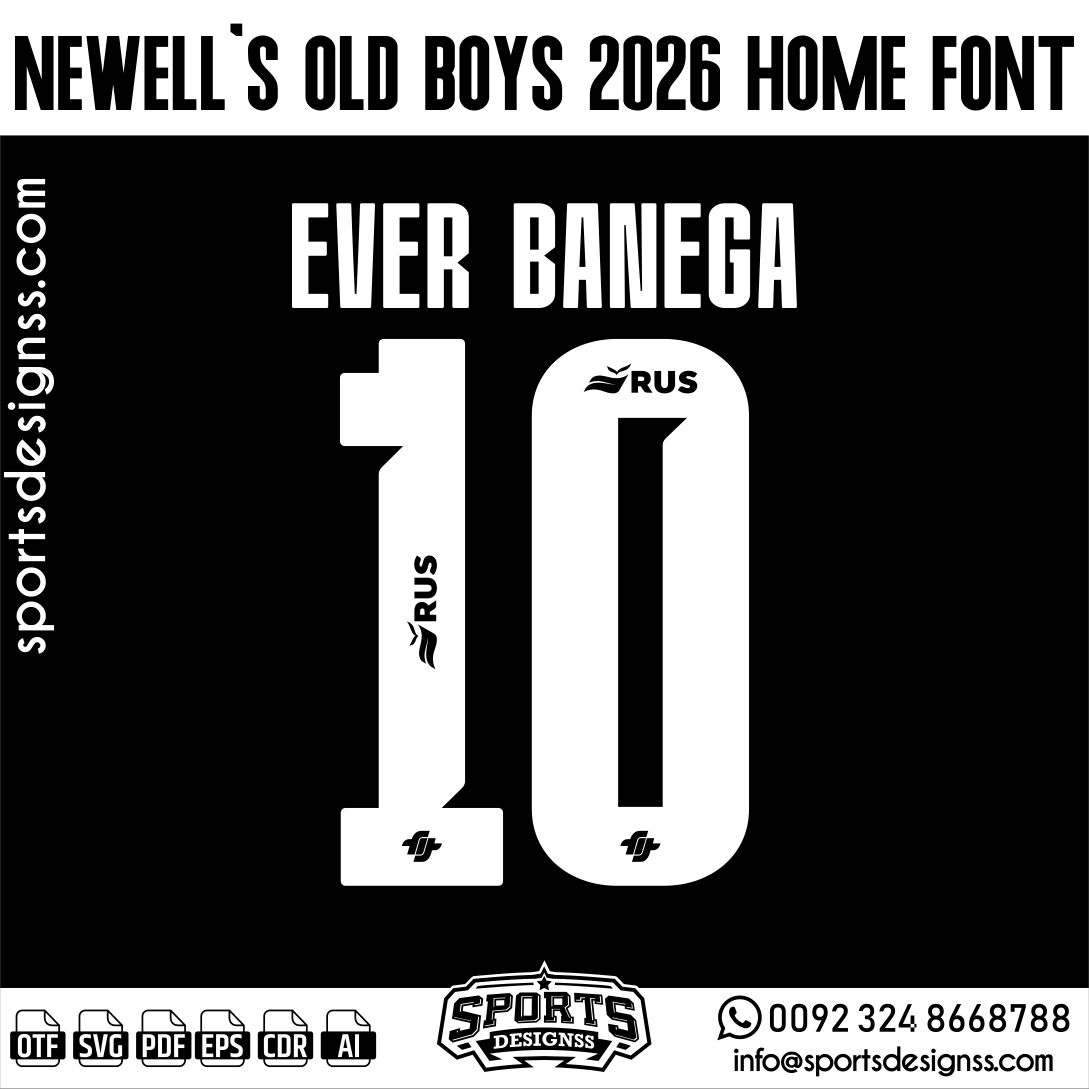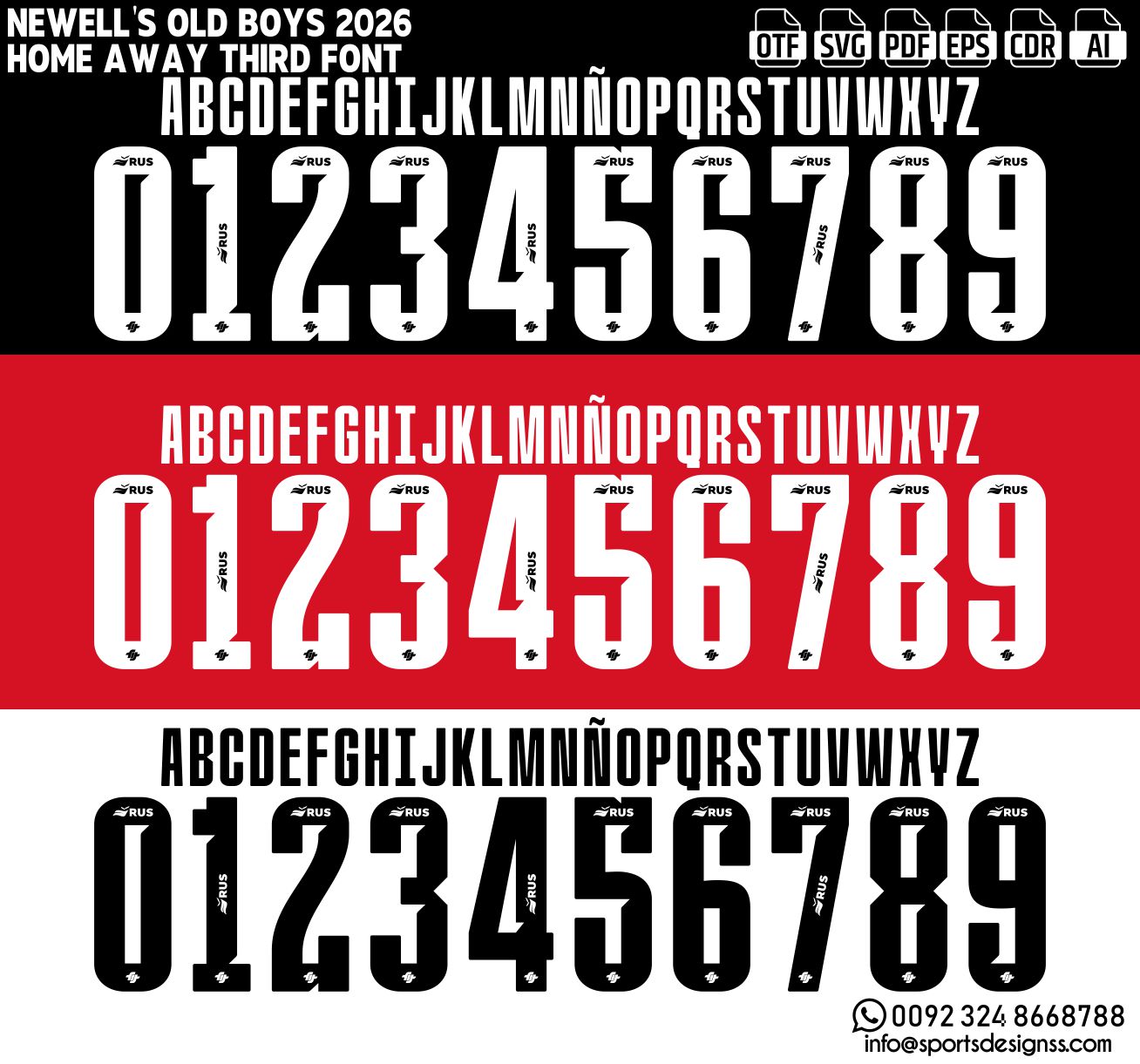
NEWELL’S OLD BOYS 2026 HOME FONT by Sports Designss – a premium football jersey font inspired by modern kits.
Recreate authentic football jersey designs with the NEWELL’S OLD BOYS 2026 HOME FONT, built for realistic, match-ready sports visuals.
Upgrade your designs with the NEWELL’S OLD BOYS 2026 HOME FONT, a premium football jersey font inspired by modern professional sports aesthetics.